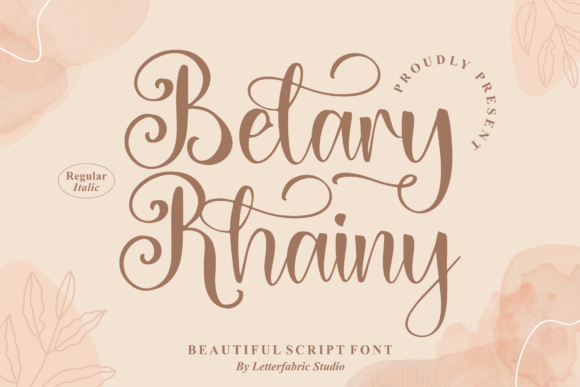
About Belary Rhainy Font
Belary Rhainy is a beautiful script font. It is suitable for various projects such as: logos, branding projects, homeware designs, product packaging, mugs, quotes, posters, shopping bags, t-shirts, book covers, and all your other lovely projects that need a beautiful taste. This font is PUA encoded which means you can access all of the glyphs and swashes with ease!